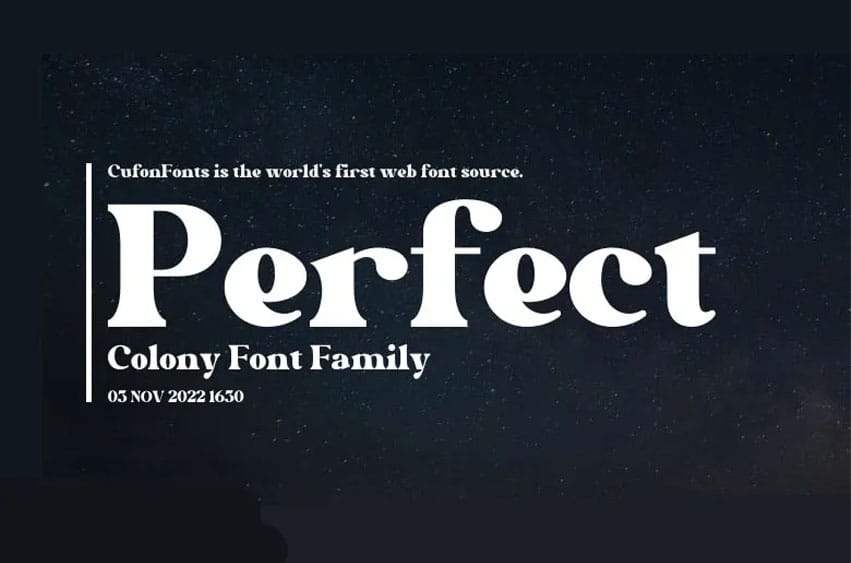
Perfect Colony Font is a bold and beautiful serif typeface that blends style with flexibility. Its polished letterforms make it great for logos, branding, posters, headlines and various creative designs.
If you are creating a visually impactful identity or eye-catching headers, this font adds impact and sophistication making your ideas stand out with clarity and timelesness.